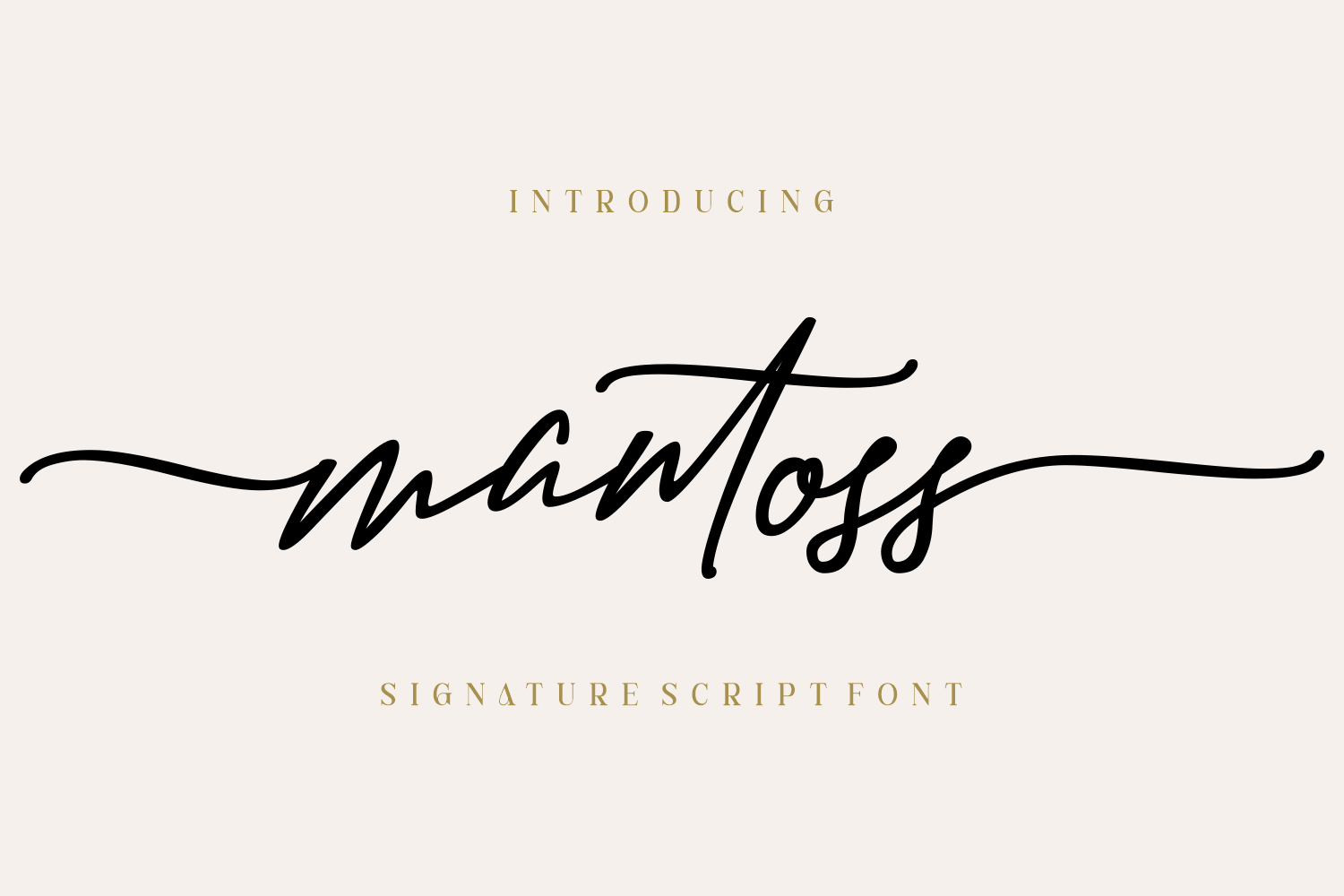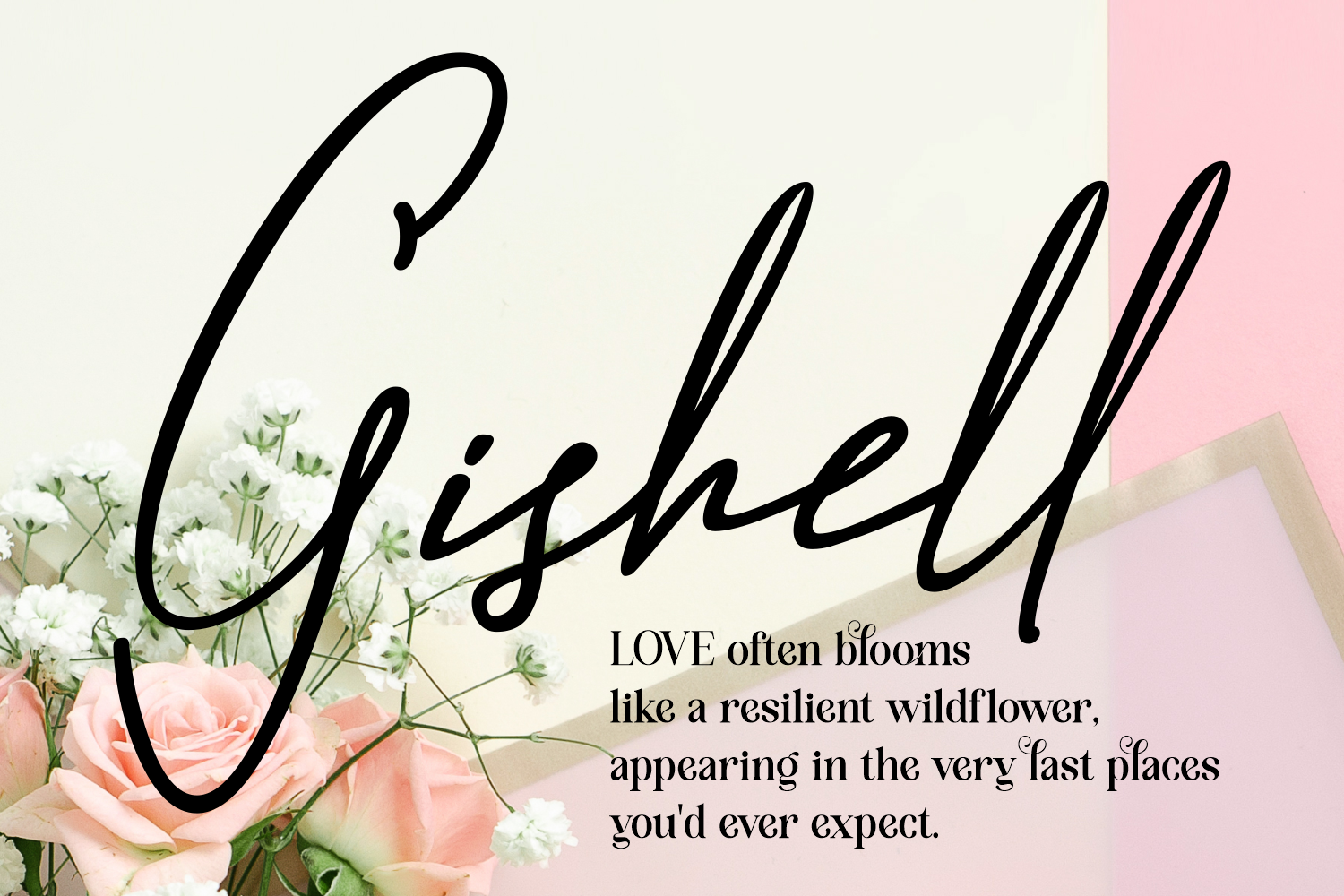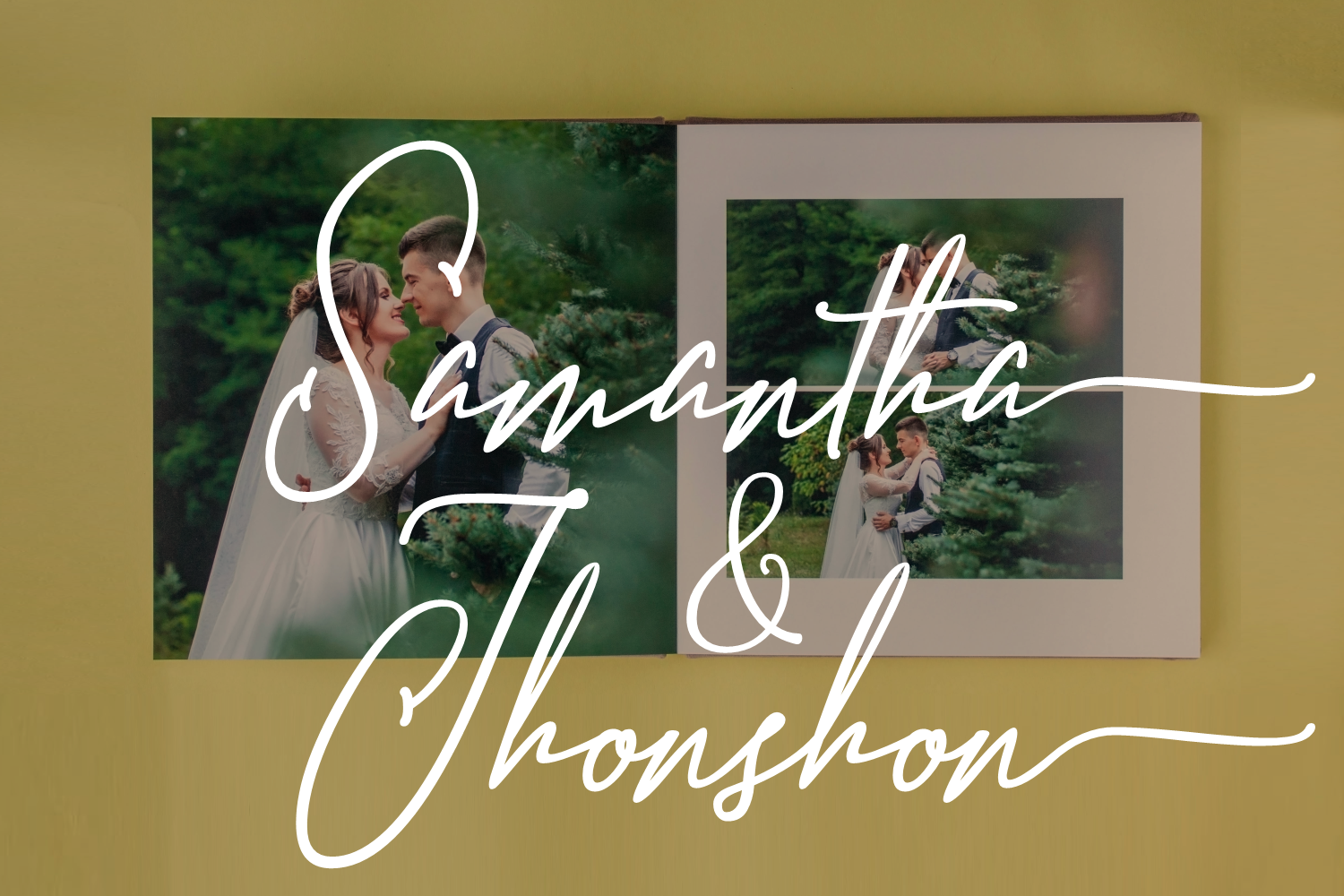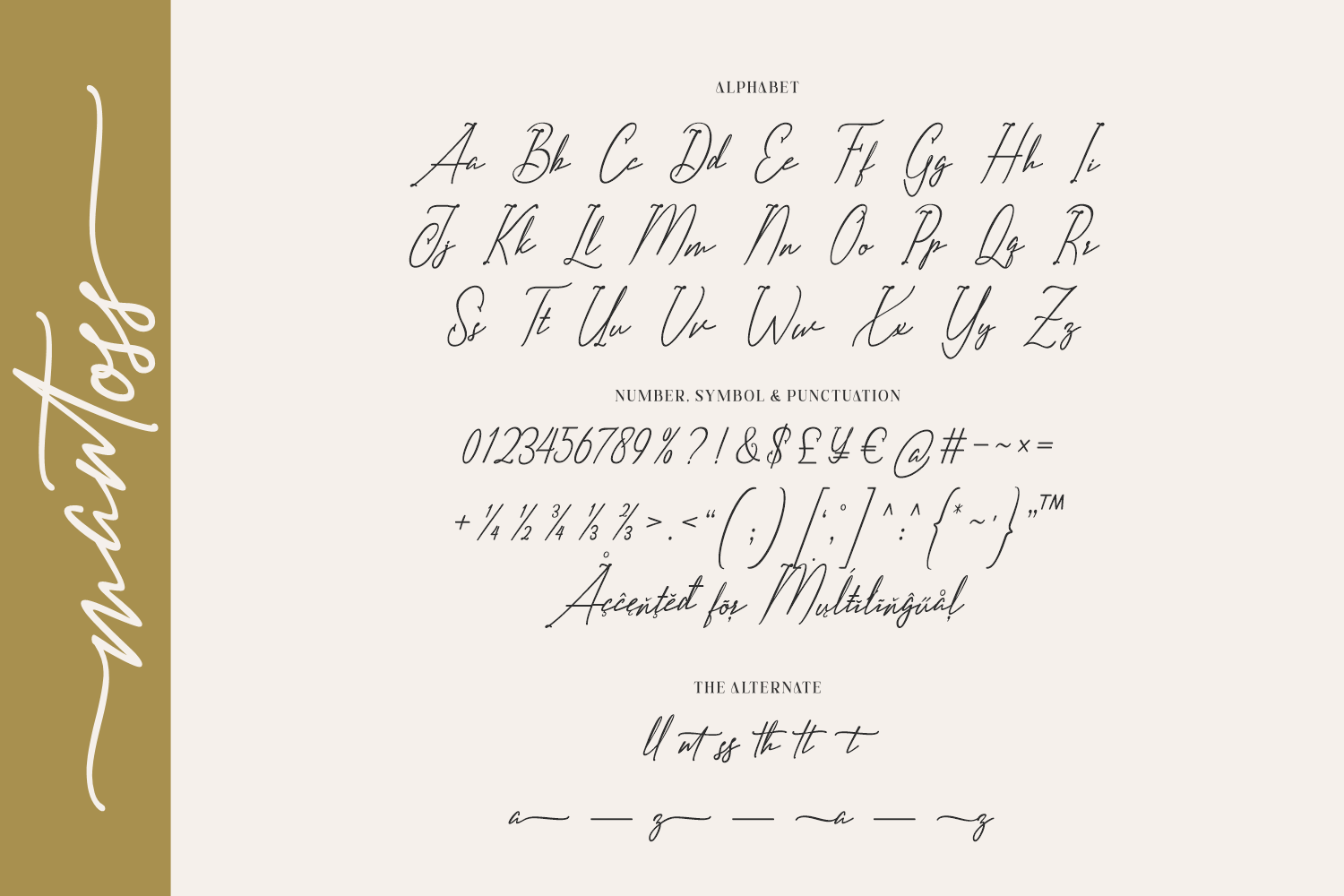
Mantoss is a luxurious signature script font that blends modern elegance with handcrafted charm. Each stroke exudes sophistication, with elongated swashes and stylish alternates that give your designs a uniquely graceful personality.